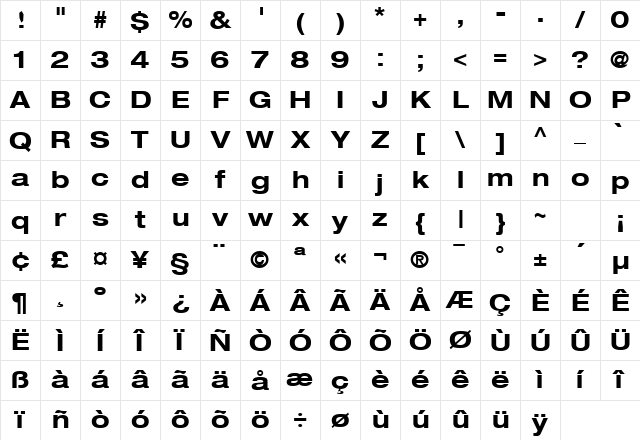
Complete HeaveneticaExtd7 BoldSH glyph index. Displaying only characters natively supported by HeaveneticaExtd7 BoldSH font.
HeaveneticaExtd7 is a composed and adaptable typeface that performs quietly and consistently across a wide range of design contexts. Its bold stroke weight gives it real presence on the page.